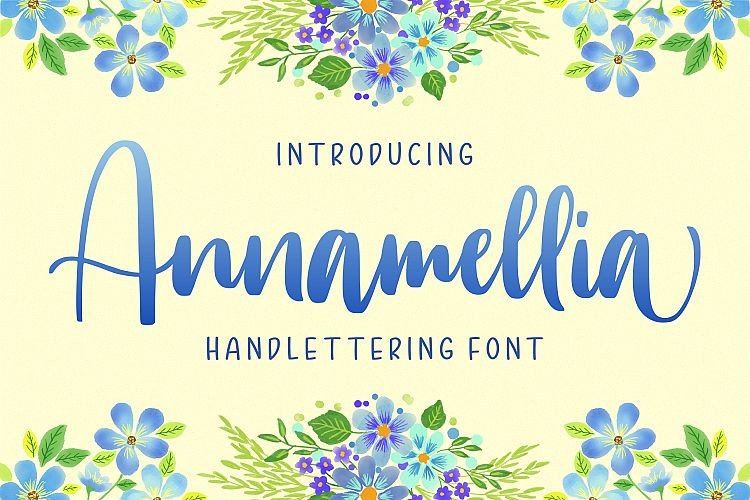
Annamellia Handlettering Font
Annamellia Font is a modern script typeface. Annamellia – handlettering font is a natural & modern handlettering font. I’ts Perfect for logo, invitation, stationery, wedding designs, social media posts, advertisements, product packaging, product designs, label, photography, watermark, special events or anything.